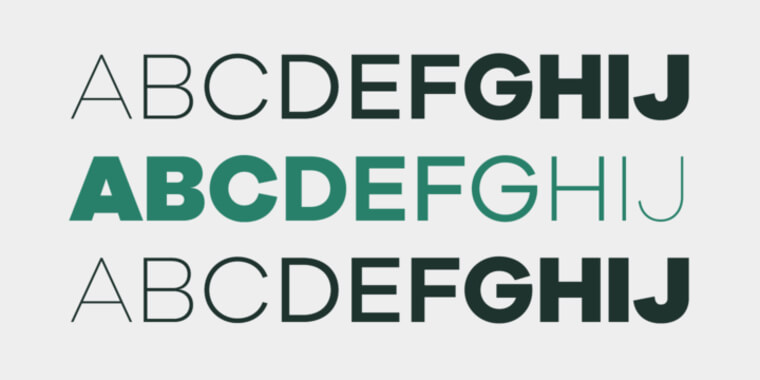
Galano Grotesque is a Geometric Sans serif typeface similar to Futura, Avant-Garde, Avenir, and others. It looks modern because the width and height of the lowercase letters were adjusted to make them easier to read.